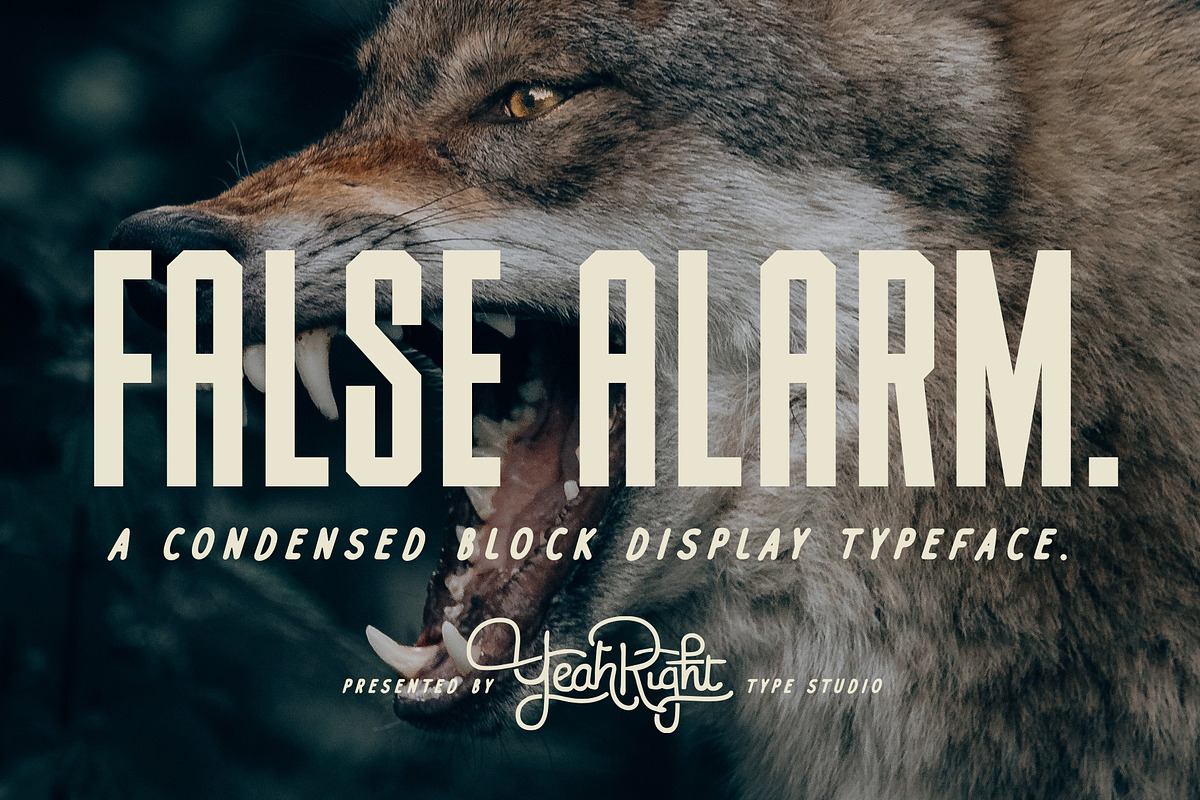
False Alarm Typeface Free Download is a bold and edgy display font designed to grab attention in posters, album covers, streetwear branding, and creative headlines. With its rebellious style and strong personality, this typeface is perfect for projects that need a loud, expressive voice. Please note that you must purchase this font for commercial use, but it is available as a free download for testing purposes. Make a statement with your next design using False Alarm Typeface Free Download and bring high-impact energy and attitude to your visual storytelling.